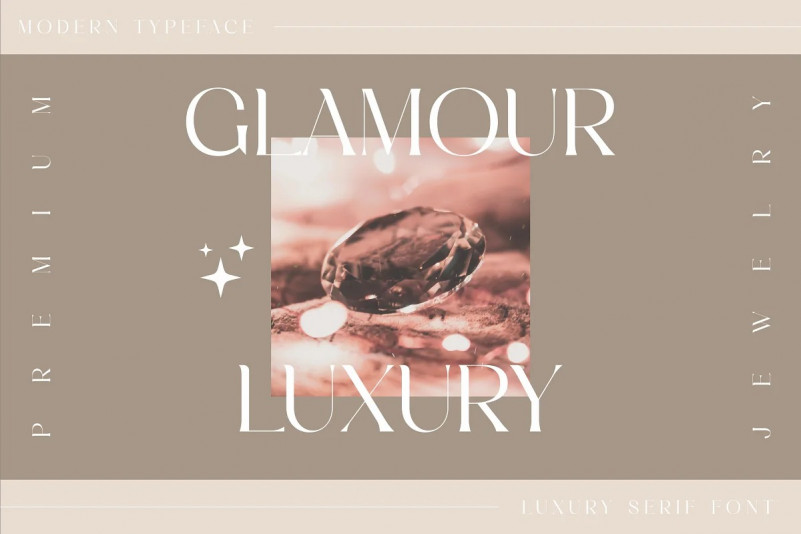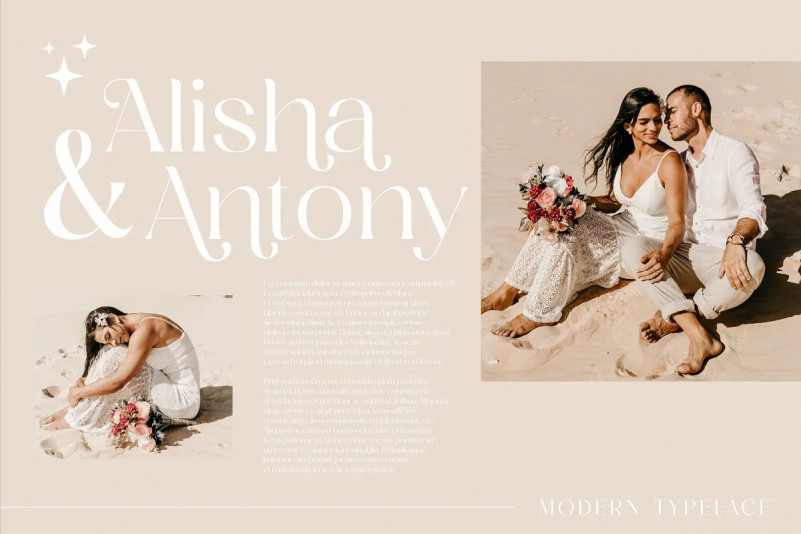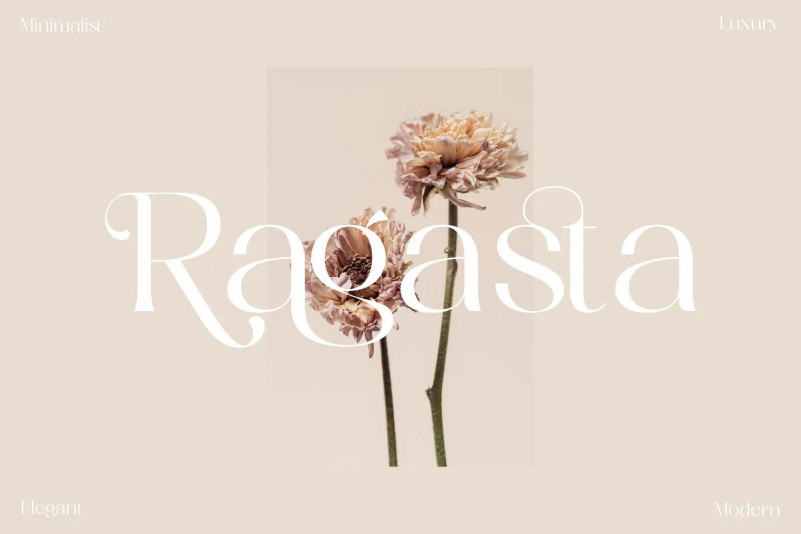
Agoka Typeface
Agoka Font
Bismillah, Introduction Agoka – A Beatiful Classic Modern Typeface
Elegant Beauty Serif font, clean and mindful , it combine in one font, use this font for anything beauty place for your logo, headline, cover book, magazine, website and many more